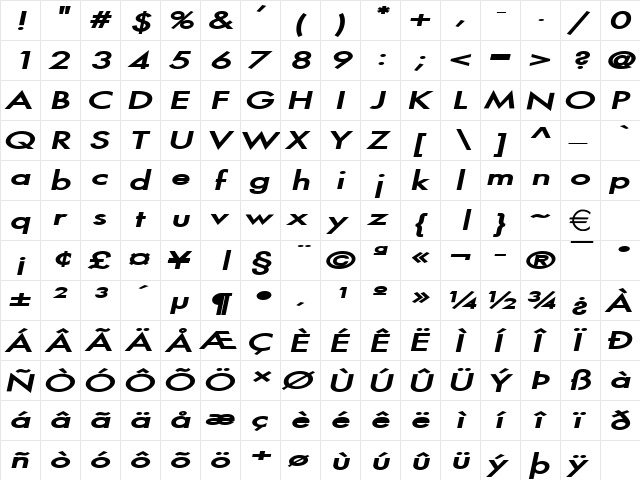
FusiExtended BoldItalic Font Preview
Design Context for FusiExtended Typeface
FusiExtended offers clean, dependable letterforms without strong stylistic allegiance, making it a practical choice for designers who need flexibility. The dynamic lean of this cut emphasises speed and emphasis in any layout. The heavy weight commands attention and anchors typographic hierarchies.
Pro Tip: Try FusiExtended for annotation and caption copy alongside an upright companion — the contrast in angle creates a dynamic but ordered typographic system.